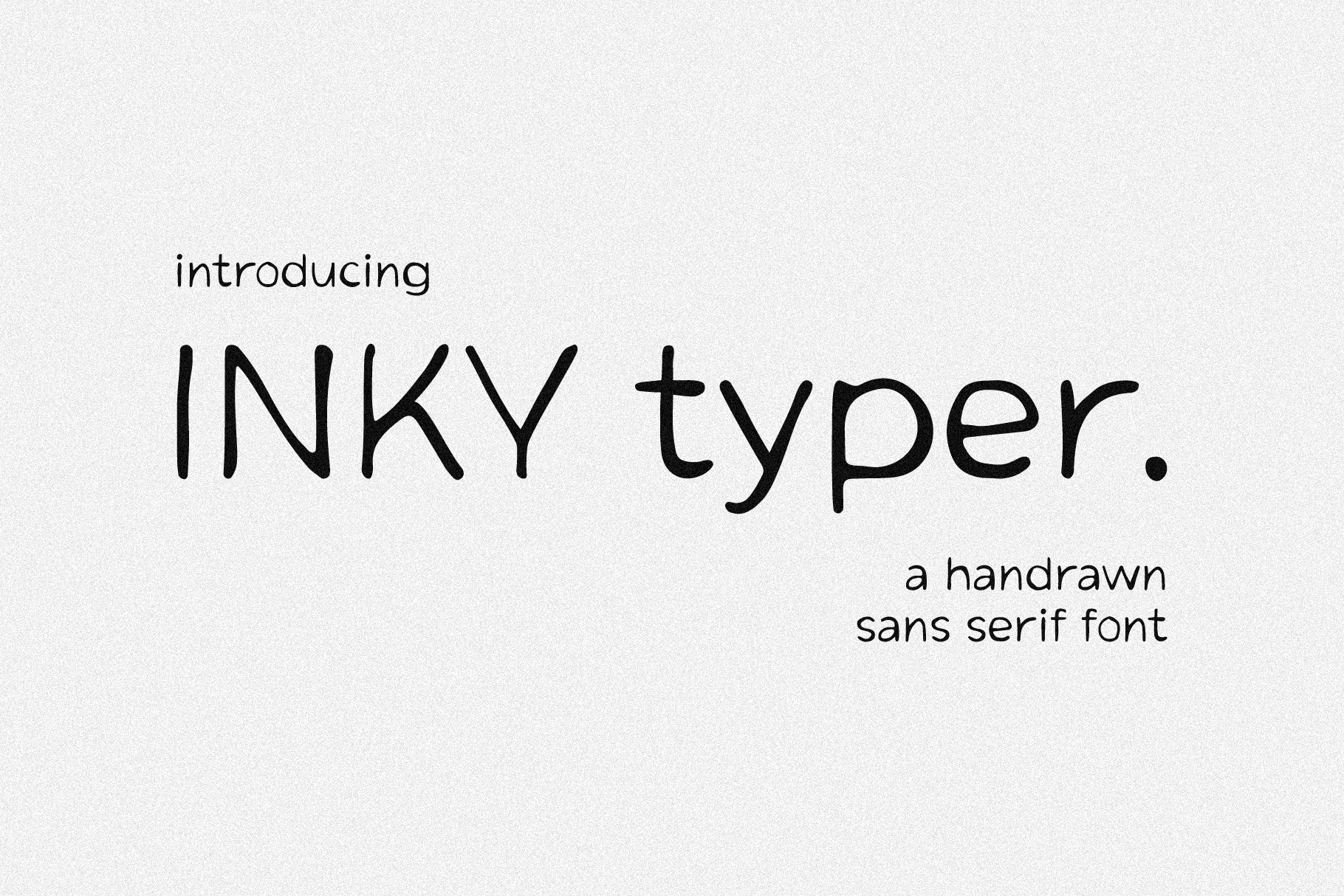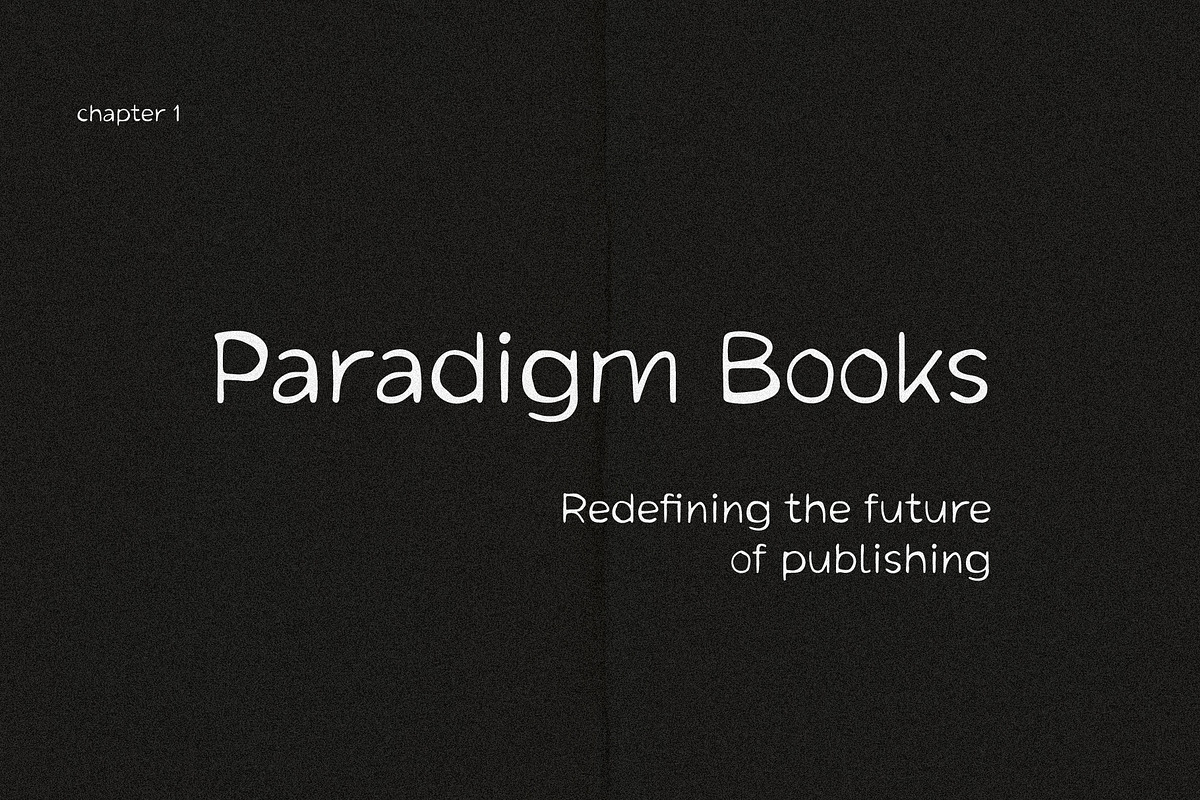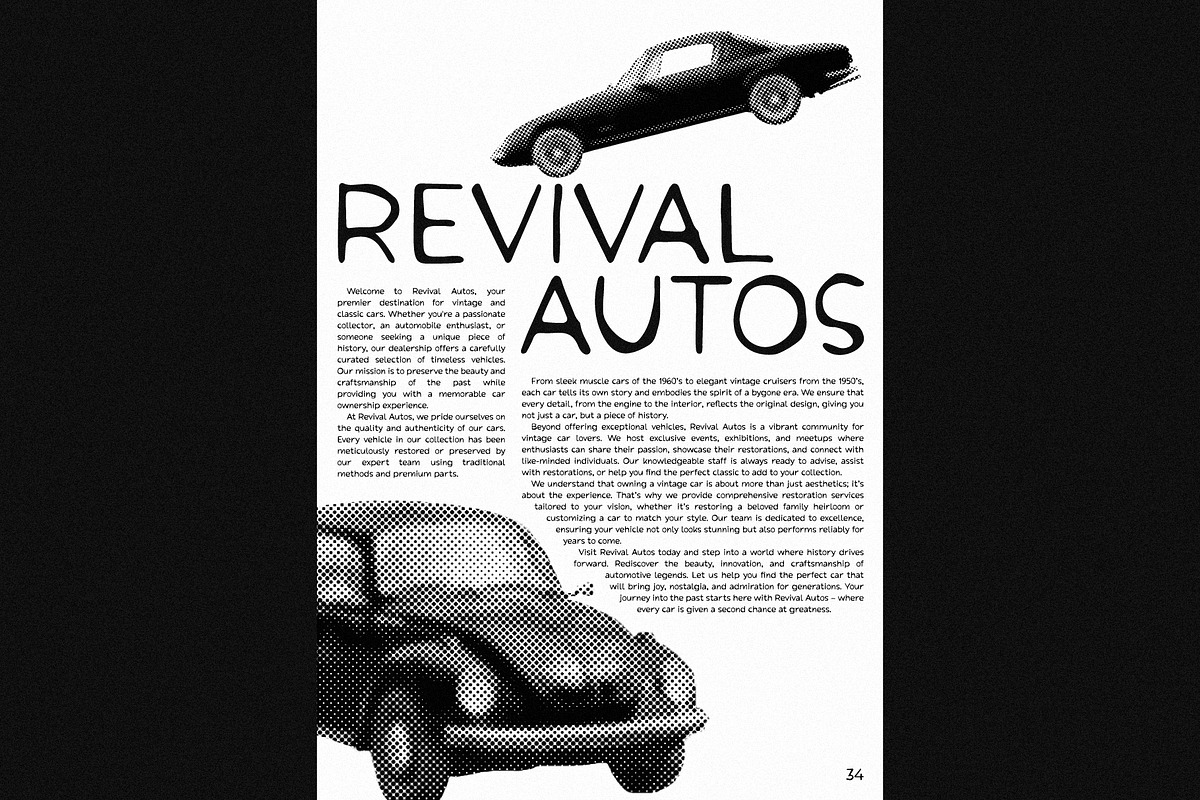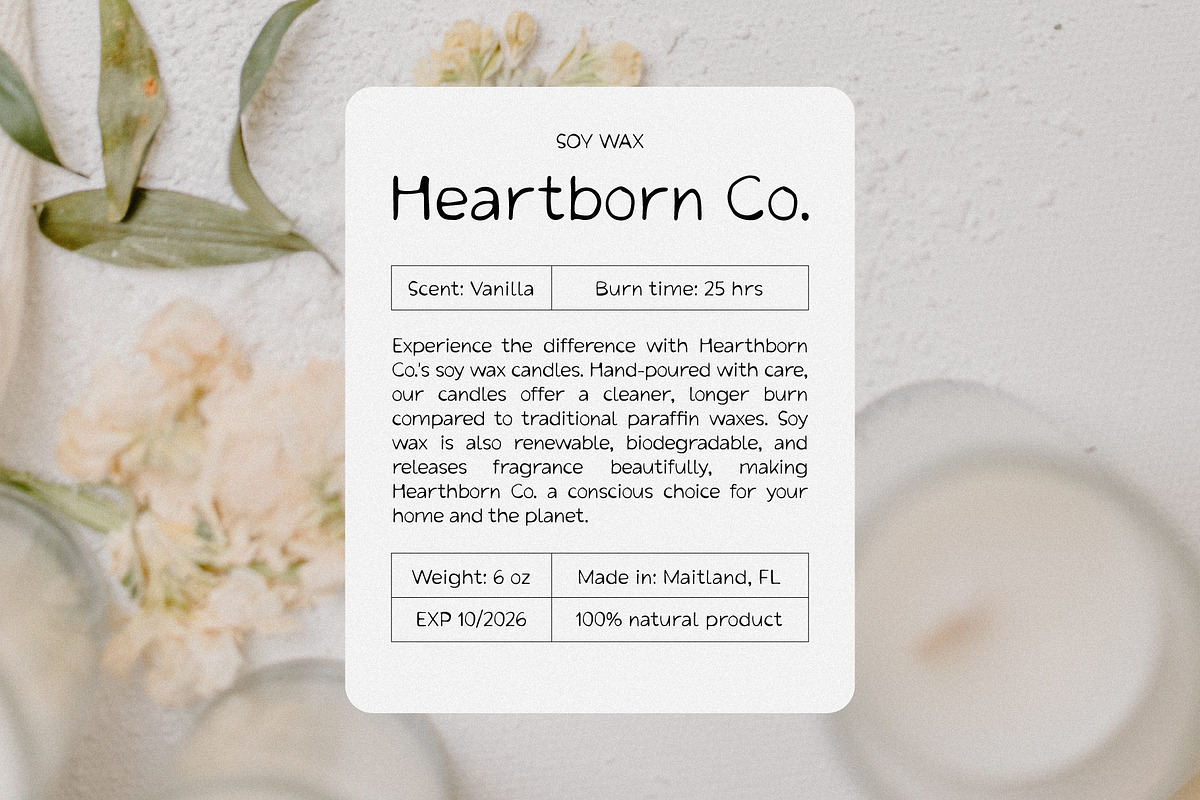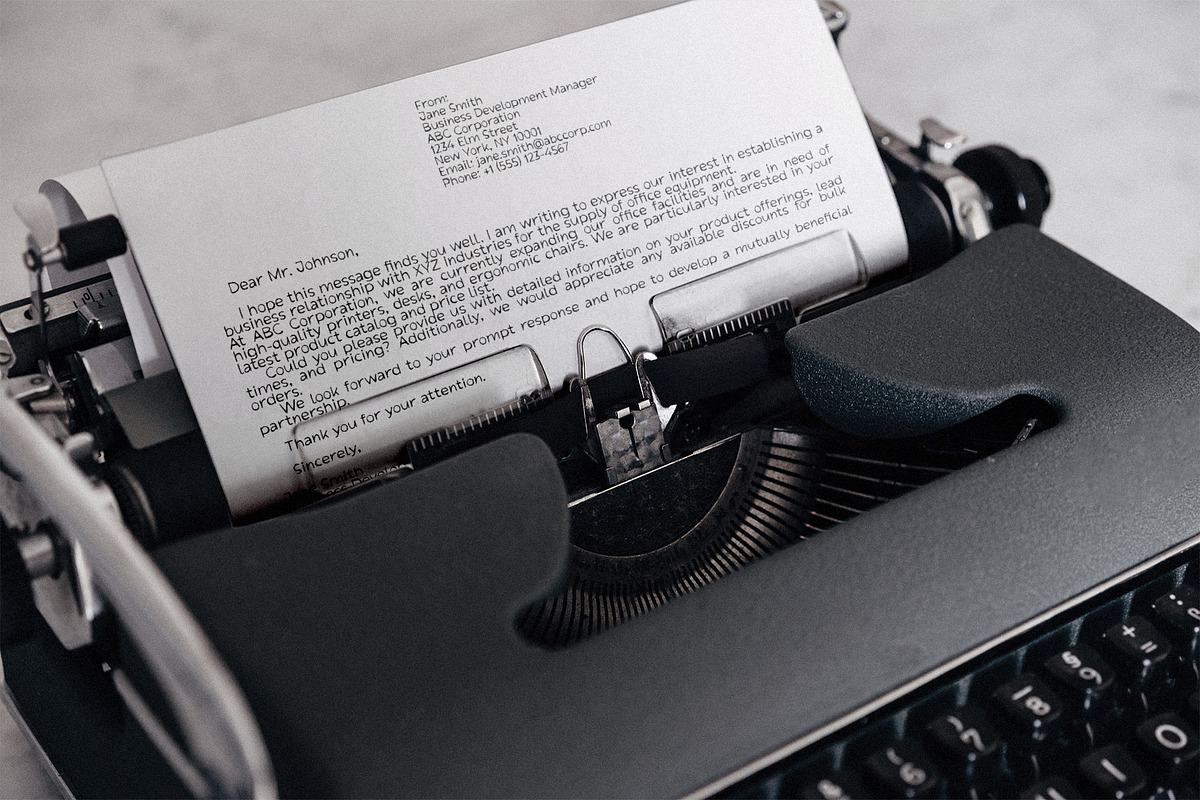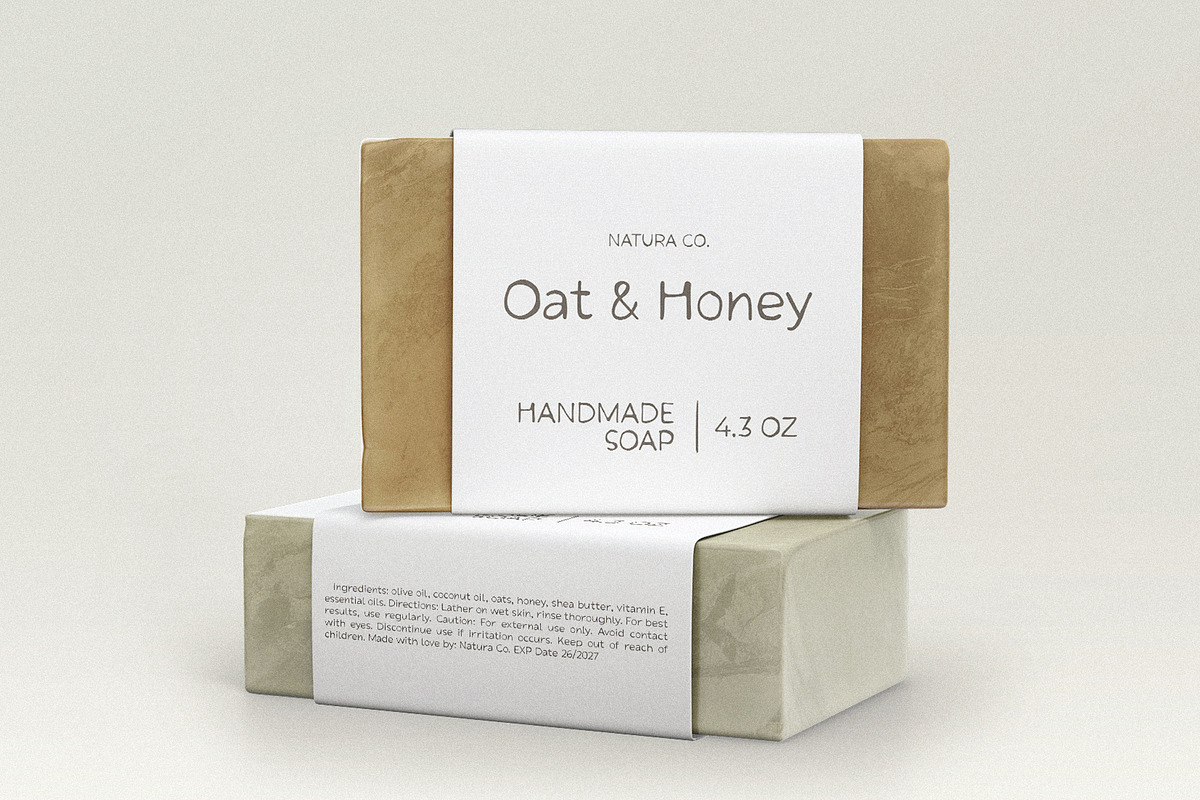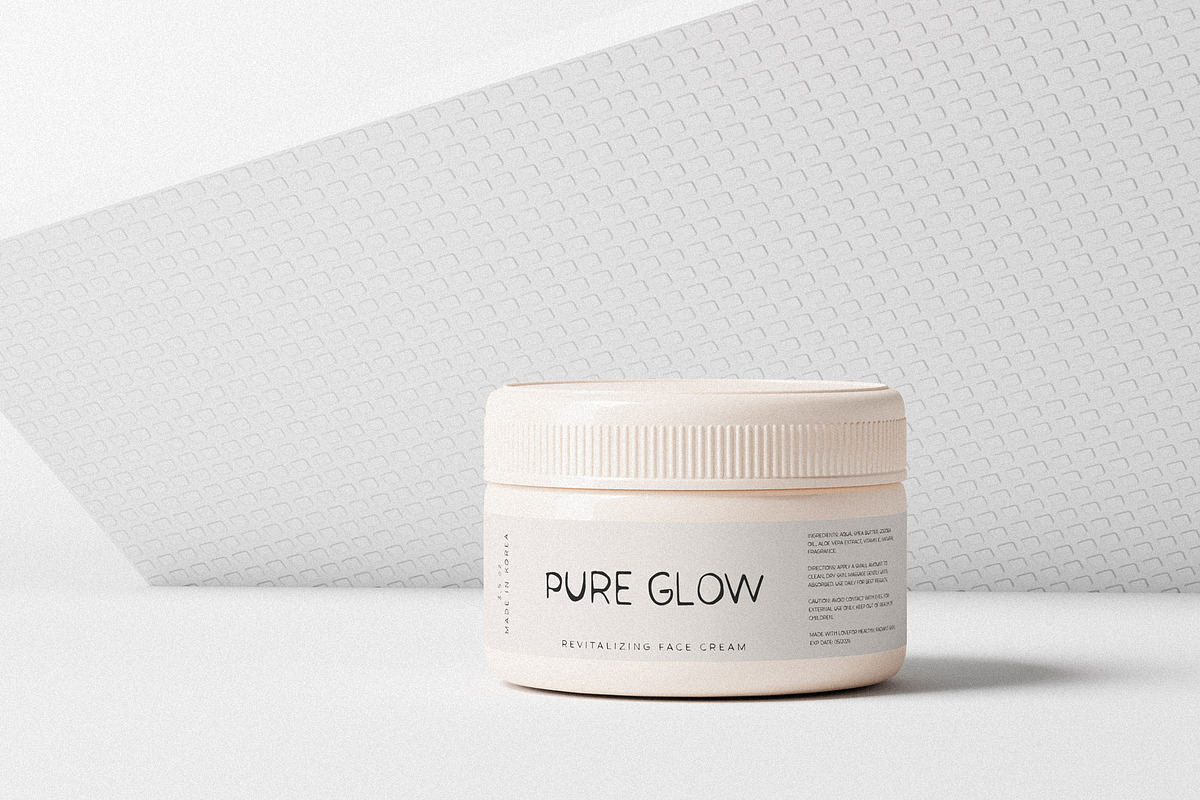
Inky Typer font
The Inky Typer font masterfully blends the clean, modern aesthetic of a sans-serif style with the authentic, organic feel of handwritten lettering. Designed to resemble a type that is printed but naturally written by hand, it creates a perfect imitation of a handwritten script with a crisp, structured appearance. The result is a versatile and expressive typeface that combines clarity and personality, making it ideal for projects that seek a personal yet professional touch. Its smooth, streamlined strokes emulate the subtle variations of handwriting, giving your text a genuine, human feel while maintaining the neatness and readability of print.